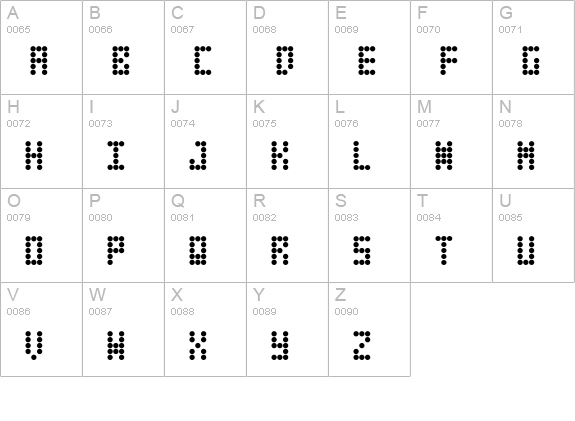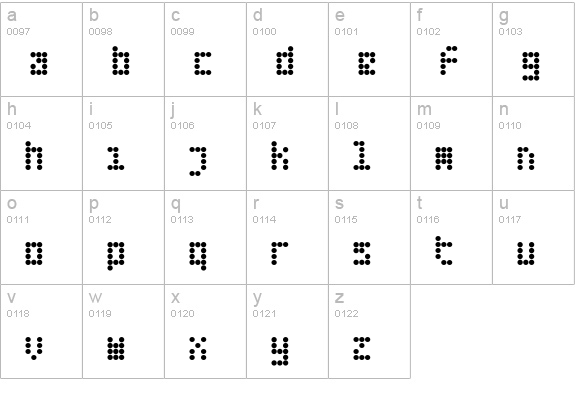
Fifteen Okay Font Details
Fifteen Okay font is a modern and stylish typeface that exudes sophistication and elegance. Featuring clean lines and a sleek design, this font is perfect for a wide range of projects, from branding to editorial design. With its versatility and timeless appeal, Fifteen Okay font is sure to make a statement in any design. The best part? Fifteen Okay font is completely free for personal and commercial use. You can download this stunning font for free at FontsMarket.com and start using it in your projects right away. Don't miss out on the opportunity to add this beautiful font to your collection and elevate your designs to the next level.